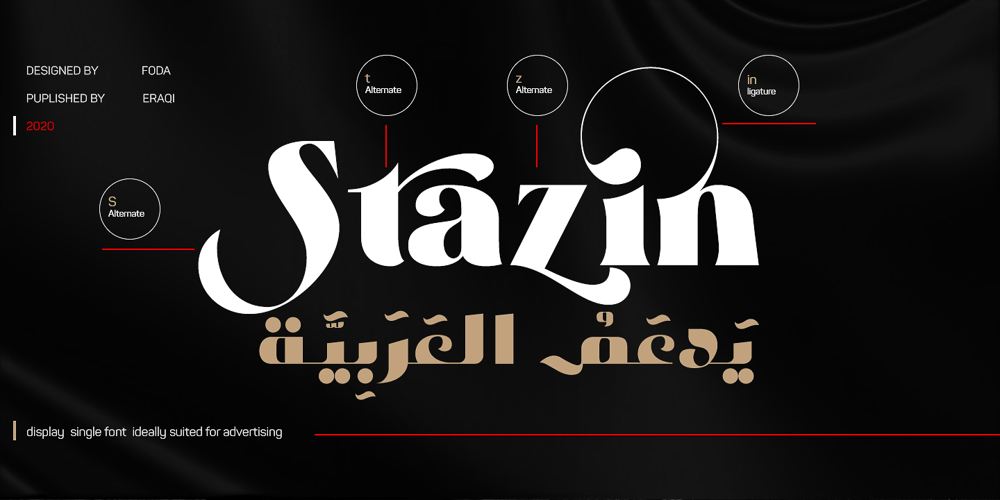
Stazin Font Family was designed by Ahmed Eraqi, Nohamad Foda and published by Fo Da. Stazin contains 1 styles and family package options. Stazin is a display high-contrasted font comes with single-weight.Stazin supports many Latin based languages and Arabic language with almost 900 glyphs that covers many OpenType features.